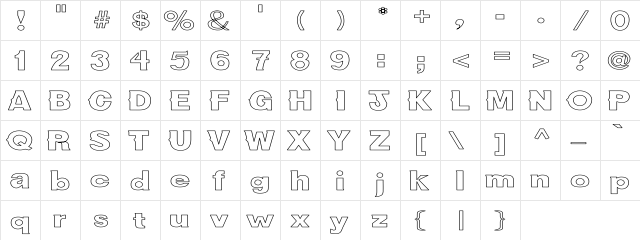
NewBold HW Regular
Design Context for NewBold HW Typeface
NewBold HW is a composed and adaptable typeface that performs quietly and consistently across a wide range of design contexts. The heavy weight commands attention and anchors typographic hierarchies.